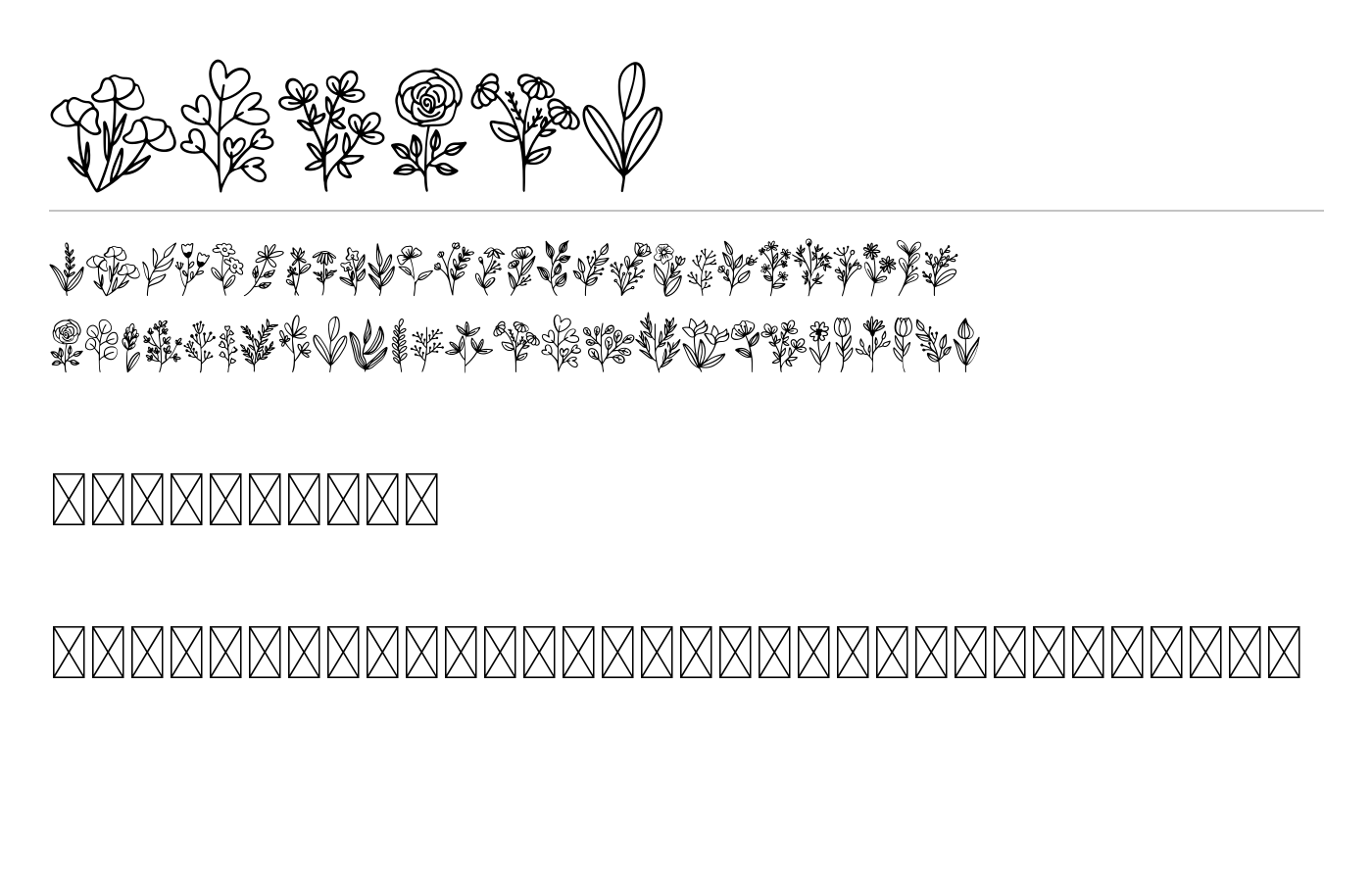
Botani is a charming decorative font featuring delicate, hand-drawn botanical illustrations instead of traditional letterforms. Its whimsical and organic style makes it perfect for creative projects related to nature, florals, and artisanal branding, adding a fresh and playful touch to designs like invitations, packaging, and eco-friendly products. This font brings a unique, artistic flair that is ideal for making a natural, heartfelt statement.
Botani Font
About Botani Font
| Font family | Botani Font |
| Designer | Masyafi Studio |